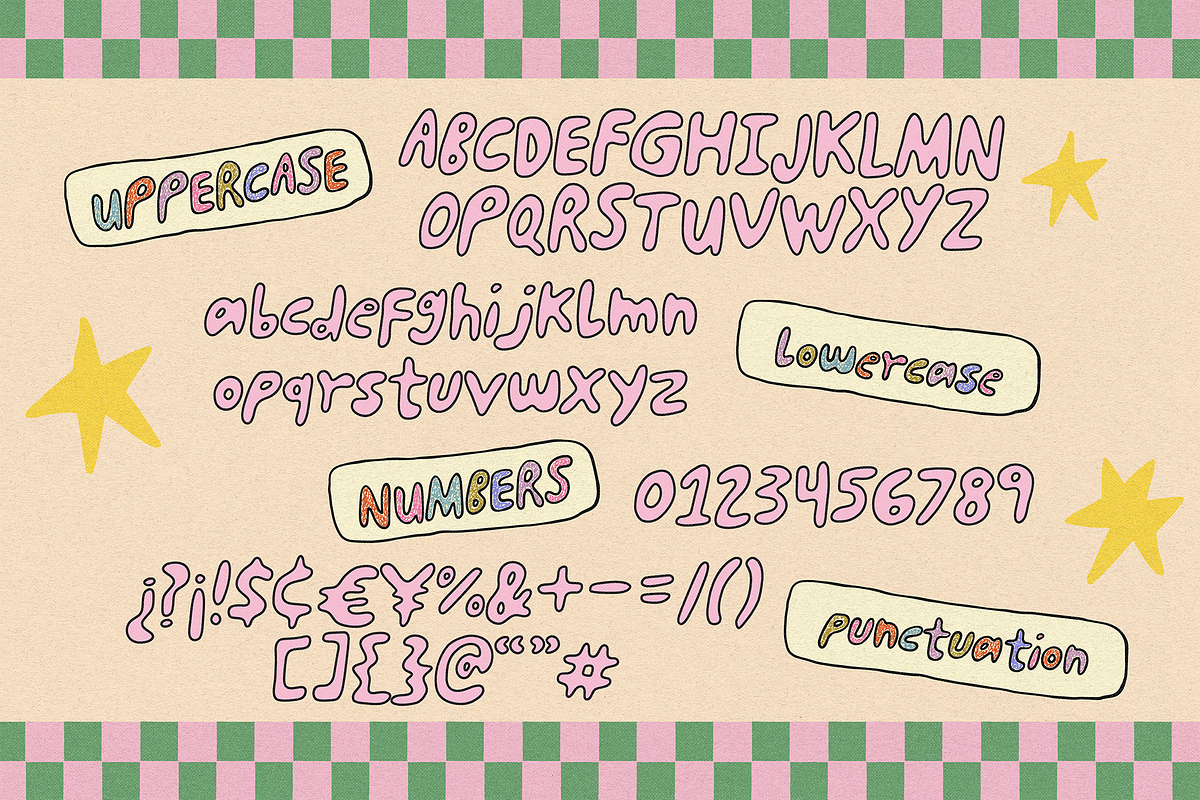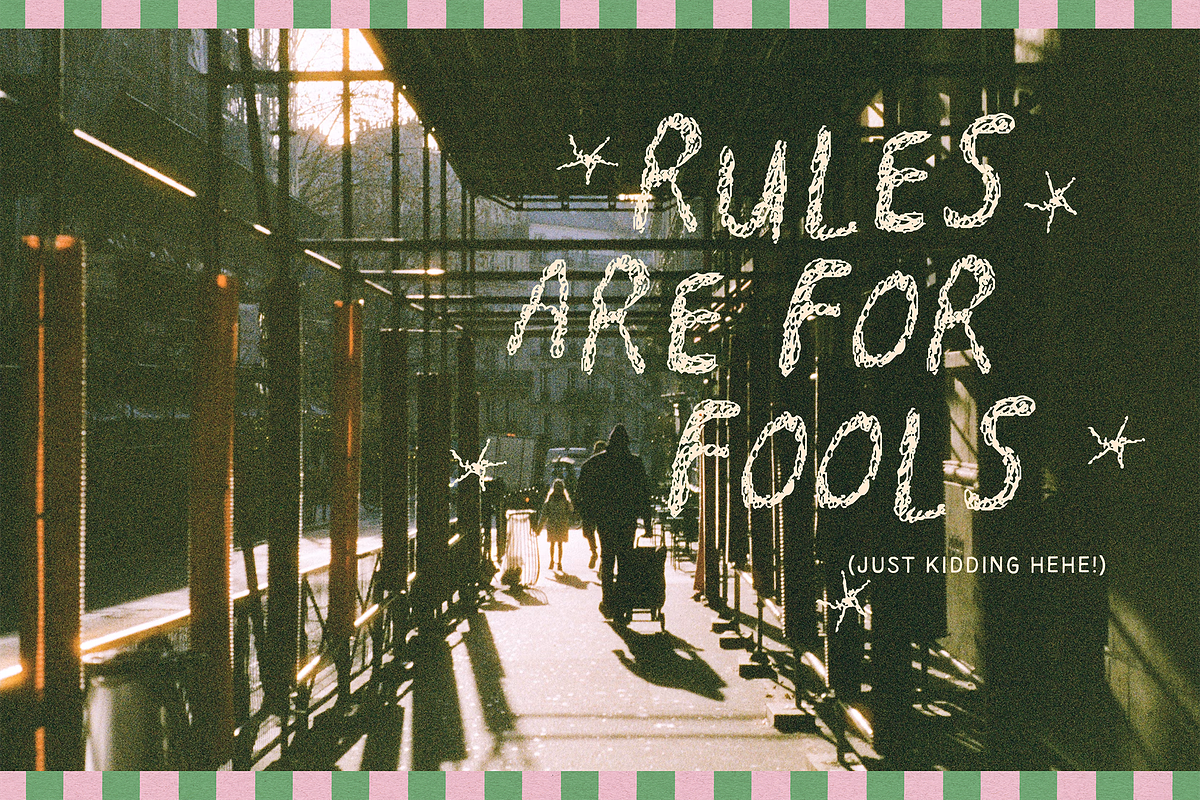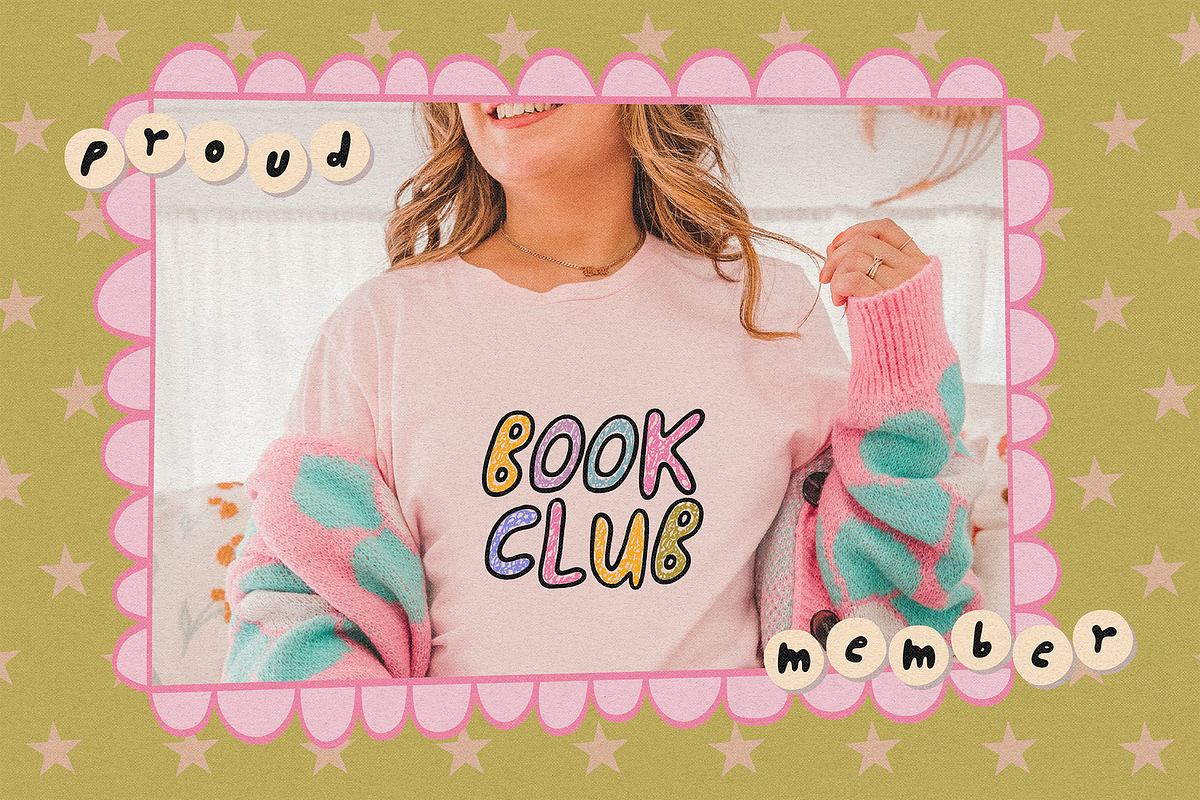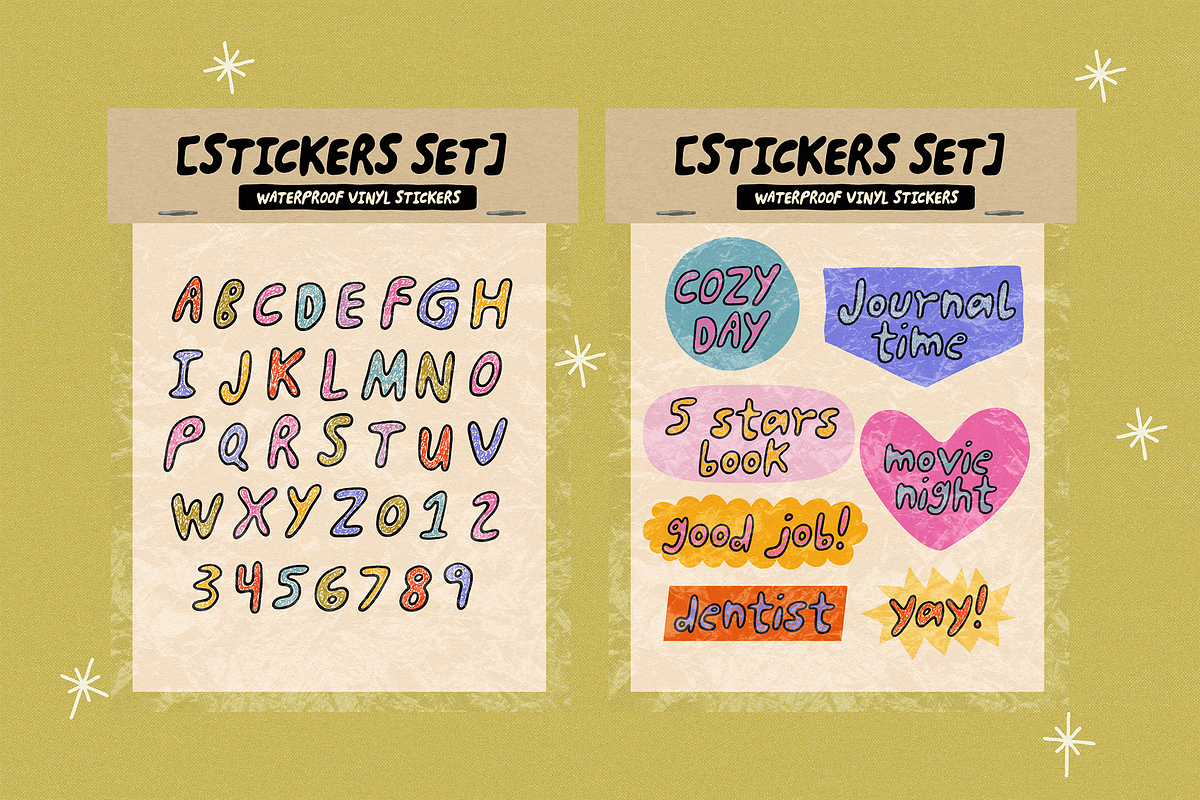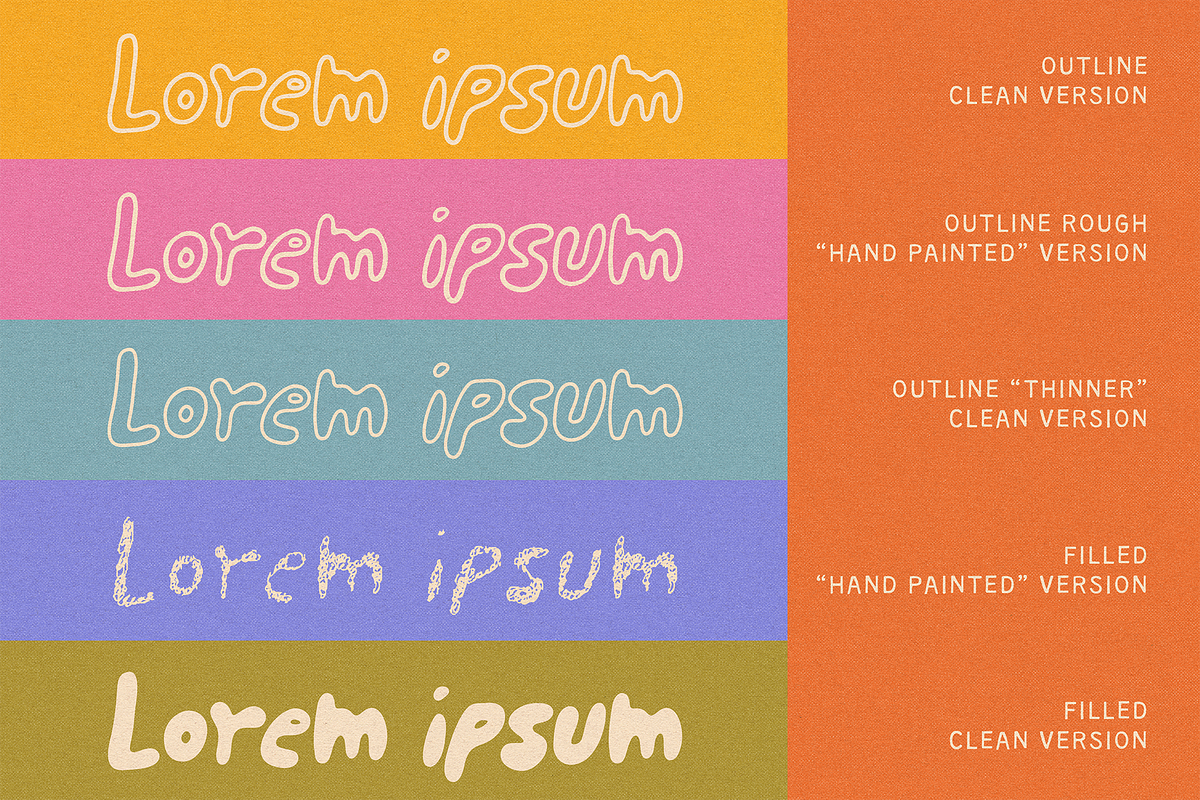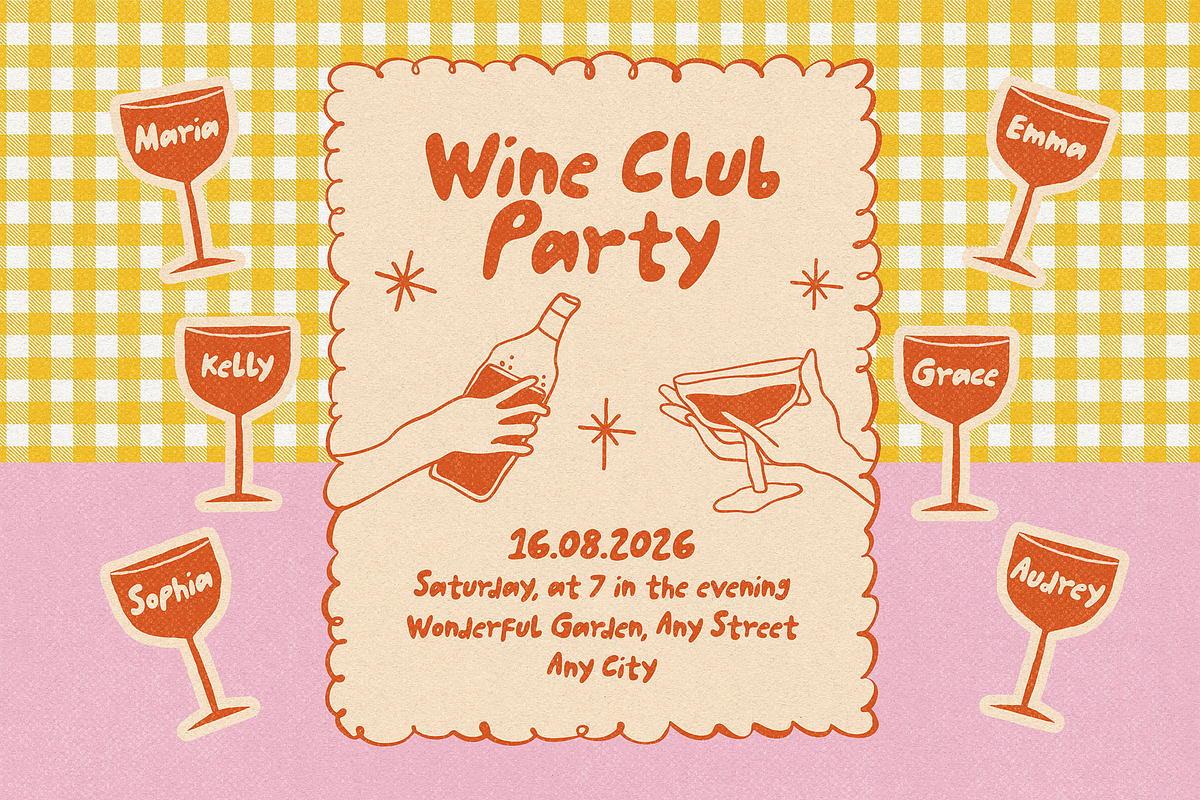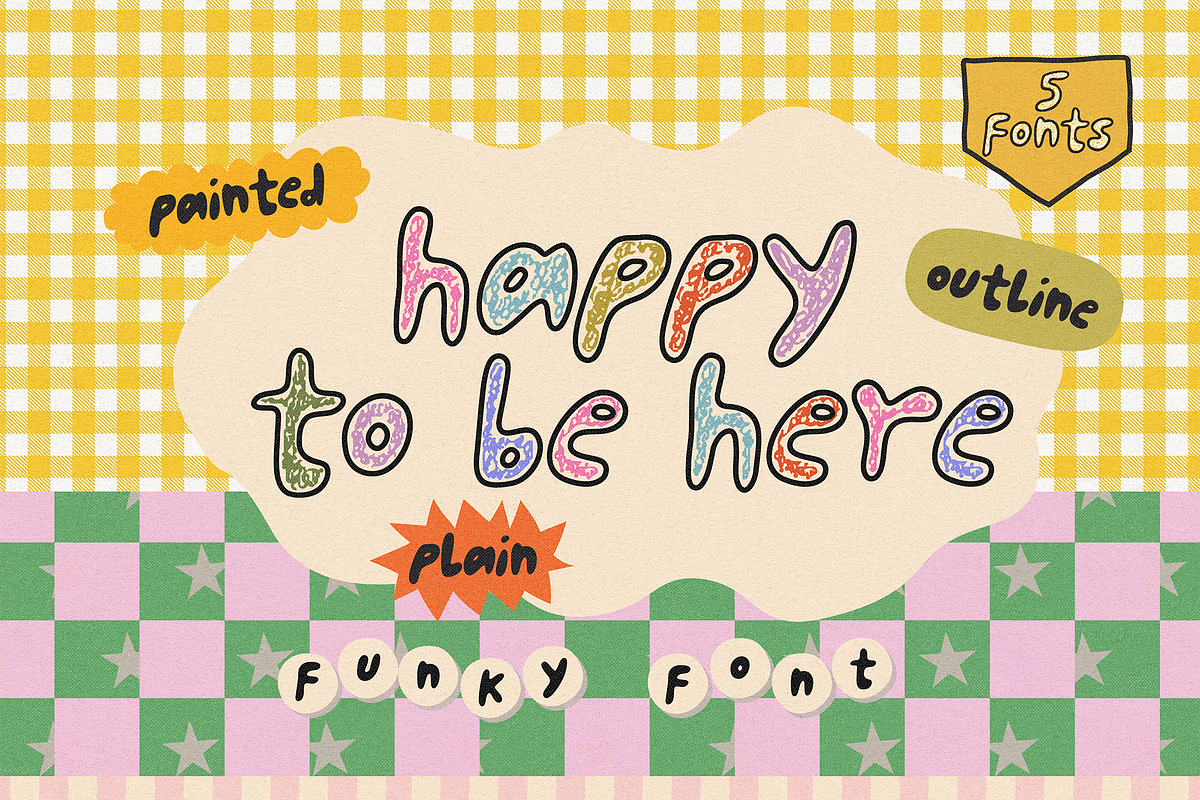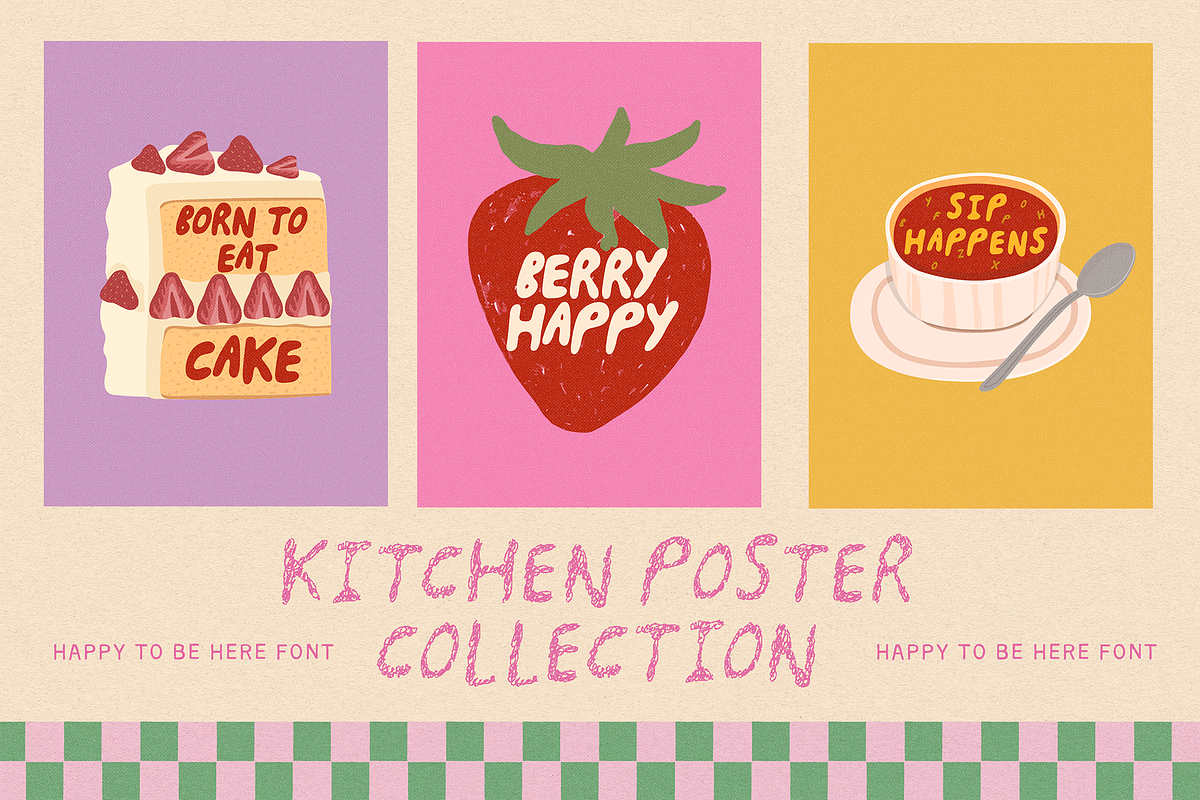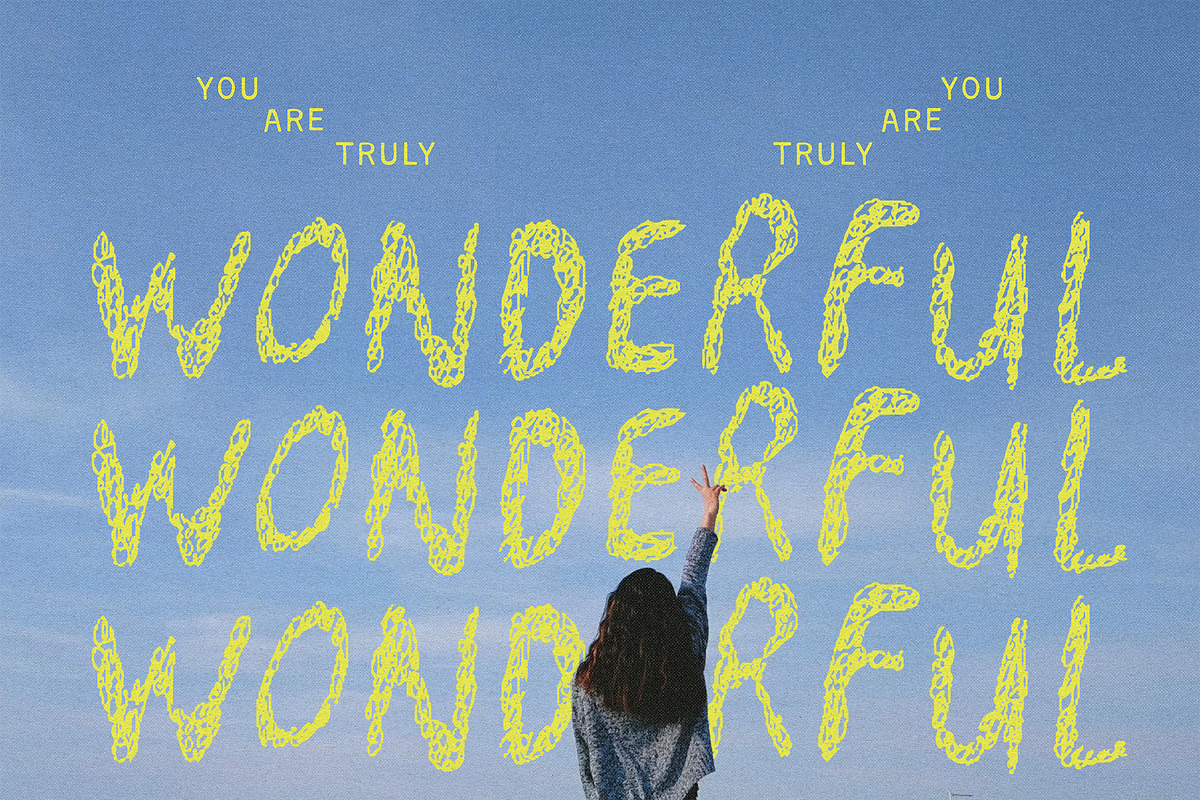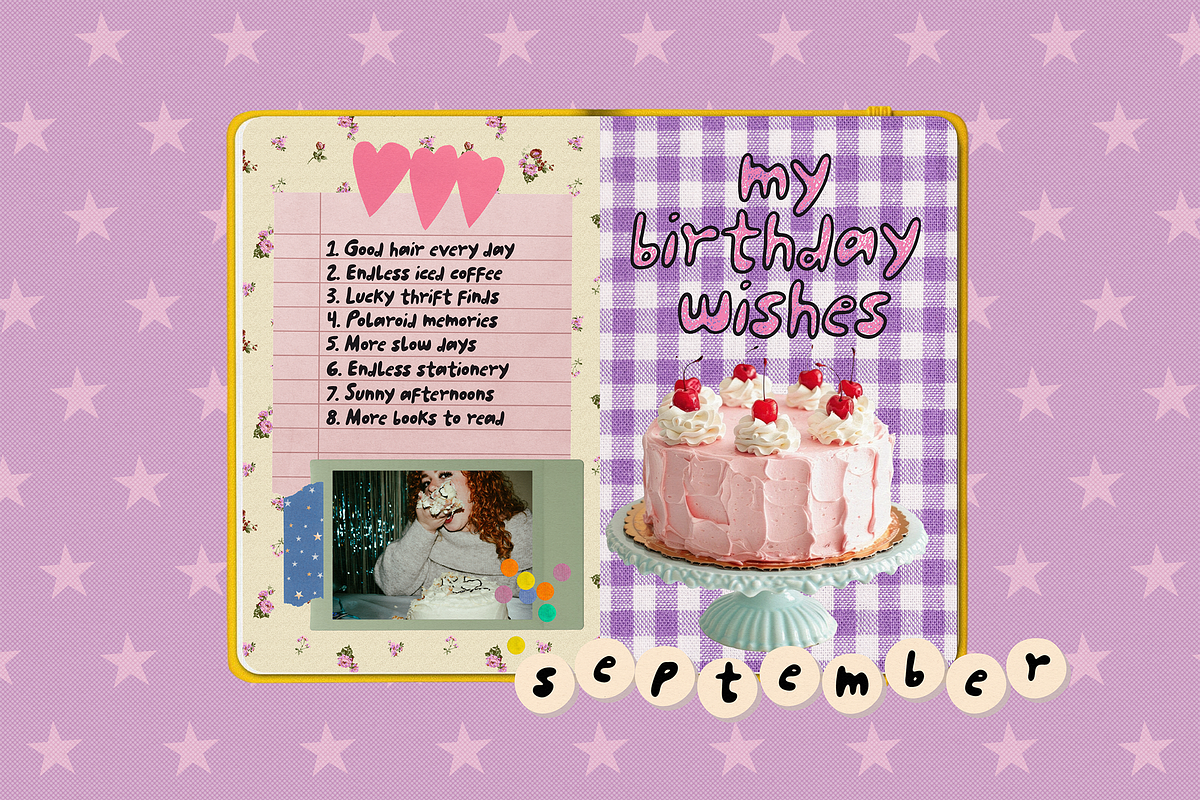
HAPPY TO BE HERE | FUNKY CHUBBY FONT
Happy To Be Here is a playful chubby font packed with personality. Its bubbly letterforms, quirky proportions, and intentionally imperfect details create a fun, carefree look that feels full of charm and character.
To make it even more versatile, the font includes a unique hand-painted version with a sketchy, doodled texture that adds an extra layer of creativity 😊